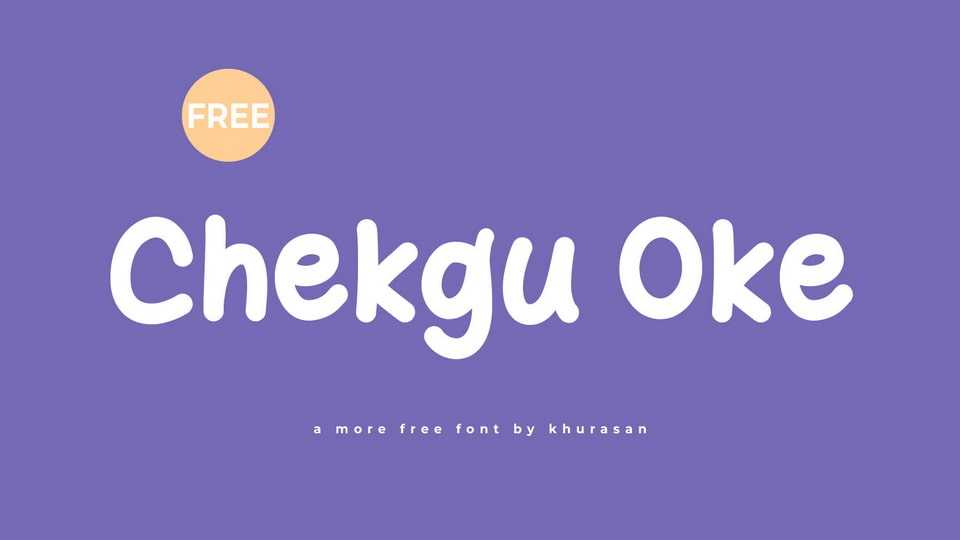
Download Checkgu One font, a simple and fun handwritten comic typeface that brings a touch of playfulness to your designs. Checkgu One font is a versatile choice for a wide range of comic-inspired projects, from light-hearted captions to charming illustrations.